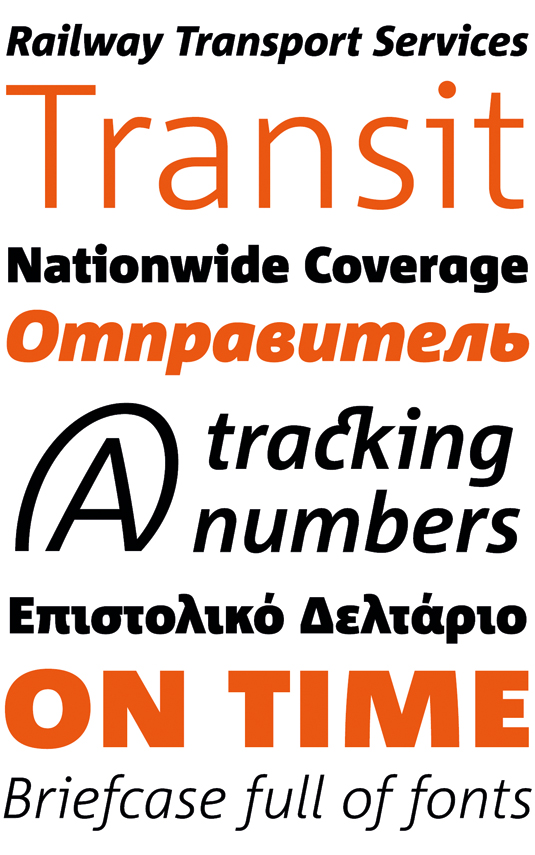
Greatest fonts countdown: 83 - Corpid
We're counting down the 100 greatest typefaces in existence. Here is number 83...
FontShop AG, the renowned type foundry, conducted a survey based on historical relevance, sales at FontShop.com, and aesthetic quality. With a few additions from the experts at Creative Bloq and Computer Arts magazine, the best fonts ever were selected for the new book, 100 Best Typefaces Ever.
But without further ado, here is the 83rd best typeface…
83. Corpid
- Lucas de Groot, 1997
Corpid began life as a bespoke typeface called Agro Sans, commissioned by Studio Dumbar as a corporate font for Dutch Ministry of Agriculture, Nature Management and Fishing to replace Frutiger. Although it was designed to fit strict technical requirements, Corpid has a personality all of its own. This was in part a result of what de Groot calls, 'creating tension' between the inner and outer curves of each character.
"I tend to put a little more diagonal contrast into fonts than is the case in most neutral sans-serif fonts," he says on the LucasFonts website. "This brings a certain humanistic touch to the typeface. Much more subtle here than in Thesis – but although it is almost invisible, it is still palpable."